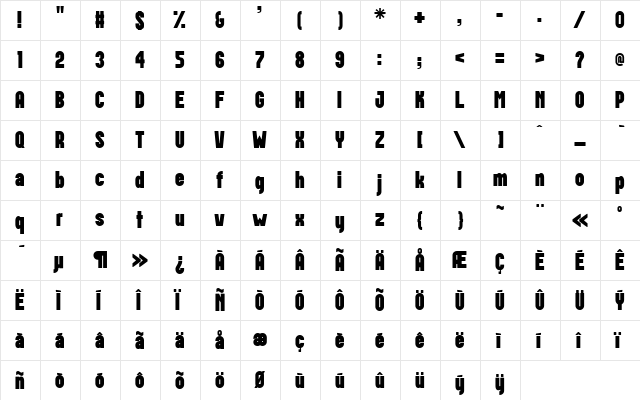
Postillon Regular
Design Context for Postillon Typeface
Postillon takes a measured approach to typography — its balanced proportions and neutral character make it a reliable workhorse for both digital and print work.